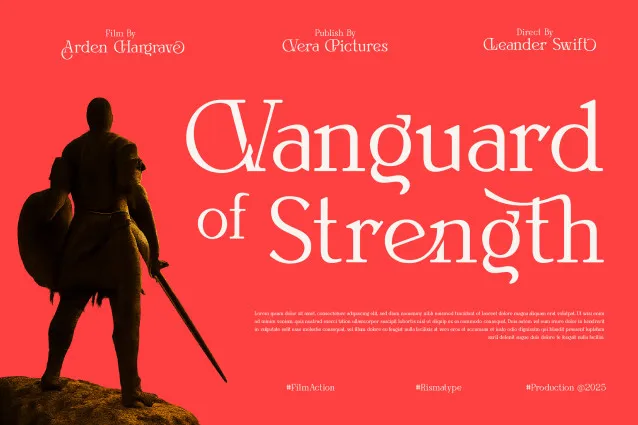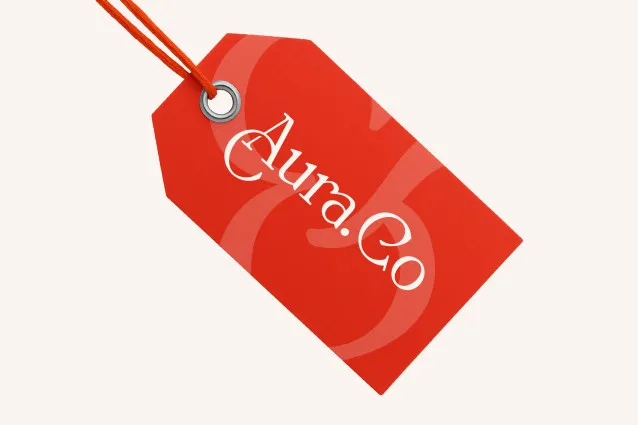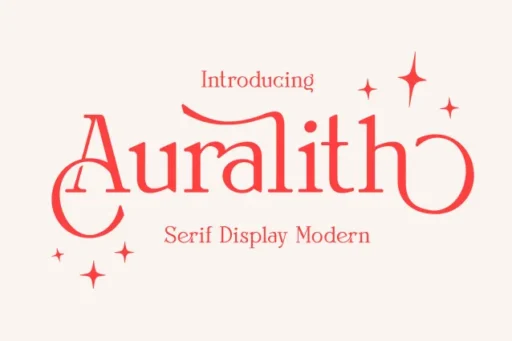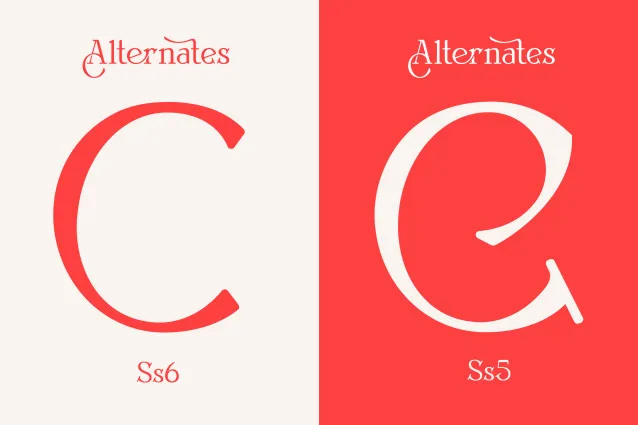
Auralith Font
Auralith is a serif display font with a bold, refined look. It has clear angles and smooth curves. Elegant ligatures help letters flow together. Use it for headlines, logos, and magazine layouts. Auralith brings a confident, timeless feel to any design.
Where Auralith Font works best
Auralith Font is built for size: event posters, hero headlines and billboard-style layouts.
High contrast display type like Auralith Font reads instantly in thumbnails and motion graphics.
What is Auralith Font good for?
Auralith Font is a Display Fonts typeface tagged Bold, Branding, Classic, Display. It works well for headlines, logos, posters, social media graphics and branding projects that need a distinctive display fonts look.